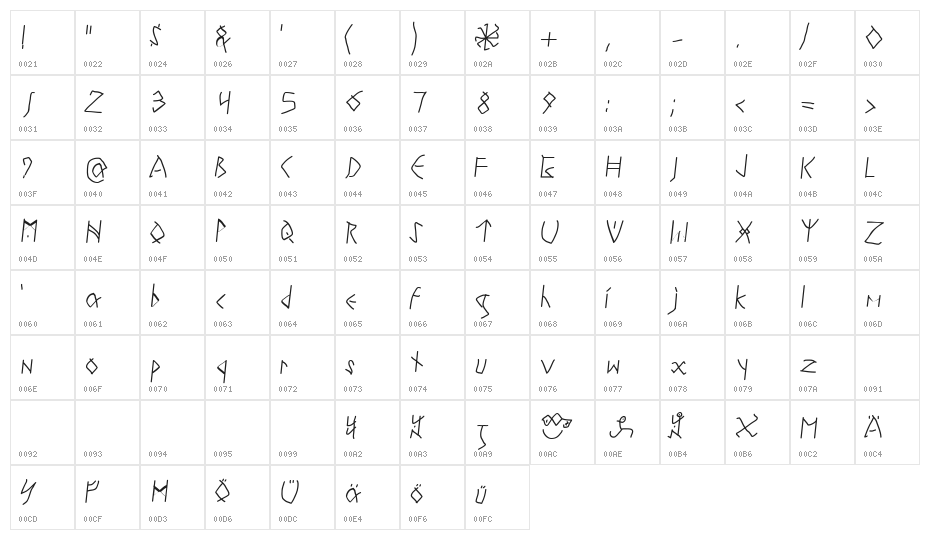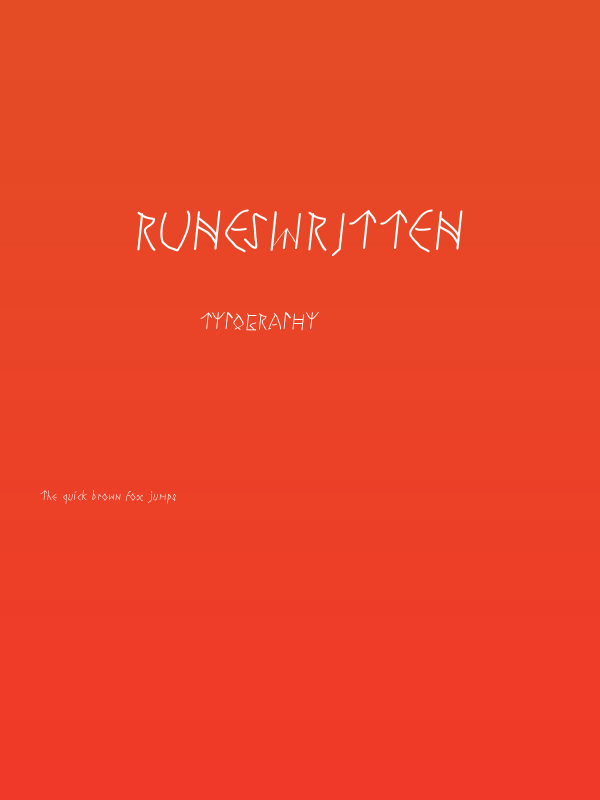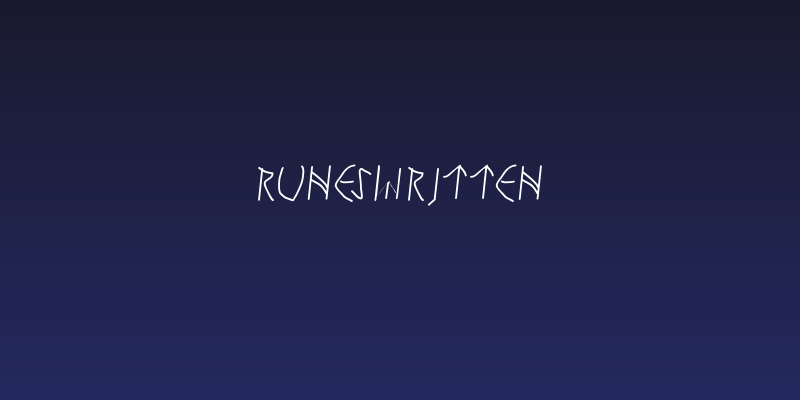
RunesWritten Font
RunesWritten Description
This font features a unique, hand-drawn style reminiscent of ancient runic alphabets. Each character is crafted with angular lines and sharp edges, giving it a distinct, primitive appearance. The uppercase and lowercase letters maintain a consistent aesthetic, with a slightly irregular, organic feel. Numbers and special characters follow the same design principles, ensuring a cohesive look across all elements. The font's overall appearance is both rustic and modern, making it versatile for various creative applications.
| Use Case | Logos, Headlines, Posters |
| Proposed Projects | Ideal for fantasy-themed projects, game design, book covers, and any creative work requiring an ancient or mystical touch. |